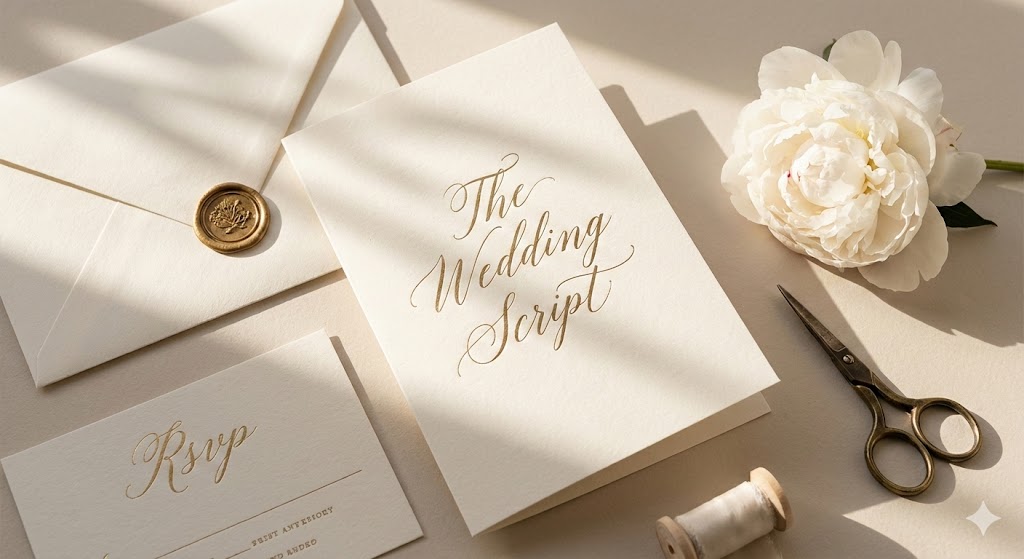
The Wedding Script Font Bundle: 50+ Elegant Calligraphy Fonts
• Elevate Your Designs: Professional-grade swashes and alternates for that high-end “custom” look.
Elevate Your Stationery with Professional Typography
The Gold Standard for Wedding & Event Branding
In the world of wedding stationery, typography isn’t just a design choice it’s the voice of the event. Most free fonts lack the refined kerning and sophisticated ligatures required for high-end print. The Wedding Script Font Bundle bridges the gap between DIY and professional artistry.
Whether you are a professional graphic designer or a DIY bride, these fonts provide the weight, flow, and elegance needed for luxury invitations, menus, and signage.
• Ink-Bleed Optimization: Perfect for physical printing and foil stamping.
• Visual Balance: Designed with consistent X-heights to ensure names remain legible even at small sizes.
• Stylistic Versatility: From modern calligraphy to timeless copperplate scripts.
Q: What makes “Wedding Script” different from standard script fonts?
A: Wedding scripts are specifically designed with longer flourishes and “OpenType features” (ligatures) that mimic real handwriting, ensuring no two letters look exactly the same.